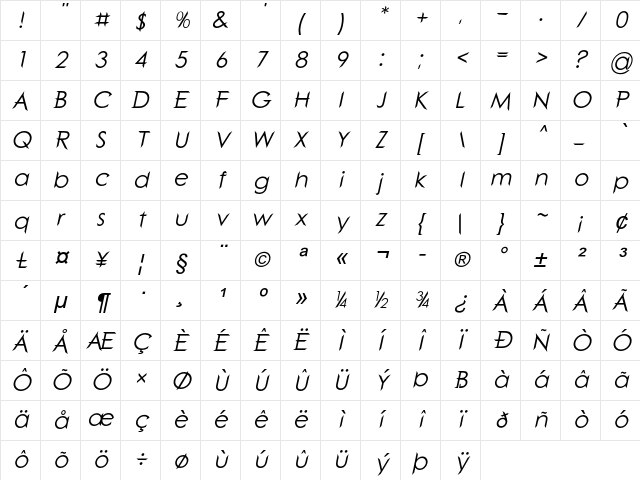
Wexton Italic
Wexton Family
Wexton Italic
Design Context for Wexton
Wexton is a composed and adaptable typeface that performs quietly and consistently across a wide range of design contexts. The slanted form adds forward momentum and visual energy.
Pro Tip: Use Wexton for emphasis, pull quotes, and subheadings where its slanted energy can add rhythm to the layout.